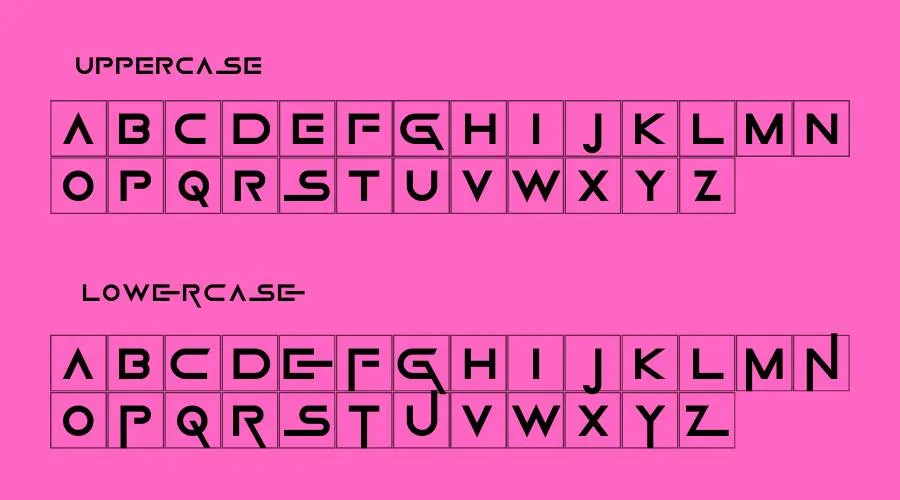
About Squid Game Font
Darrell Flood created the Squid Game Font this typeface is often used to create a stunning and readable design. It can be used anywhere where you want to create a new design.
As well as having a readable texture and a unique appearance, this typeface is attractive. And is perfect for logos, branding projects, home decor, and all sorts of other lovely ventures that require a beautiful look. You can use this font to combine with another typeface such as donrees claws font.